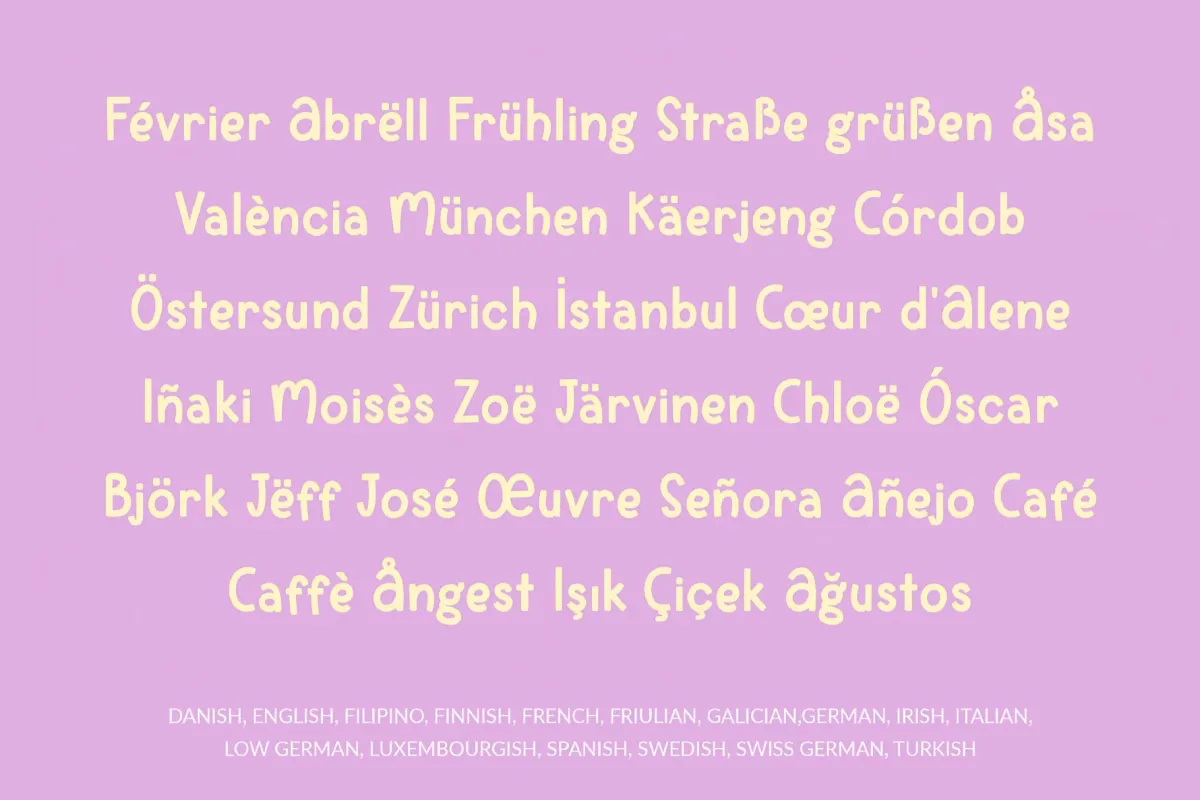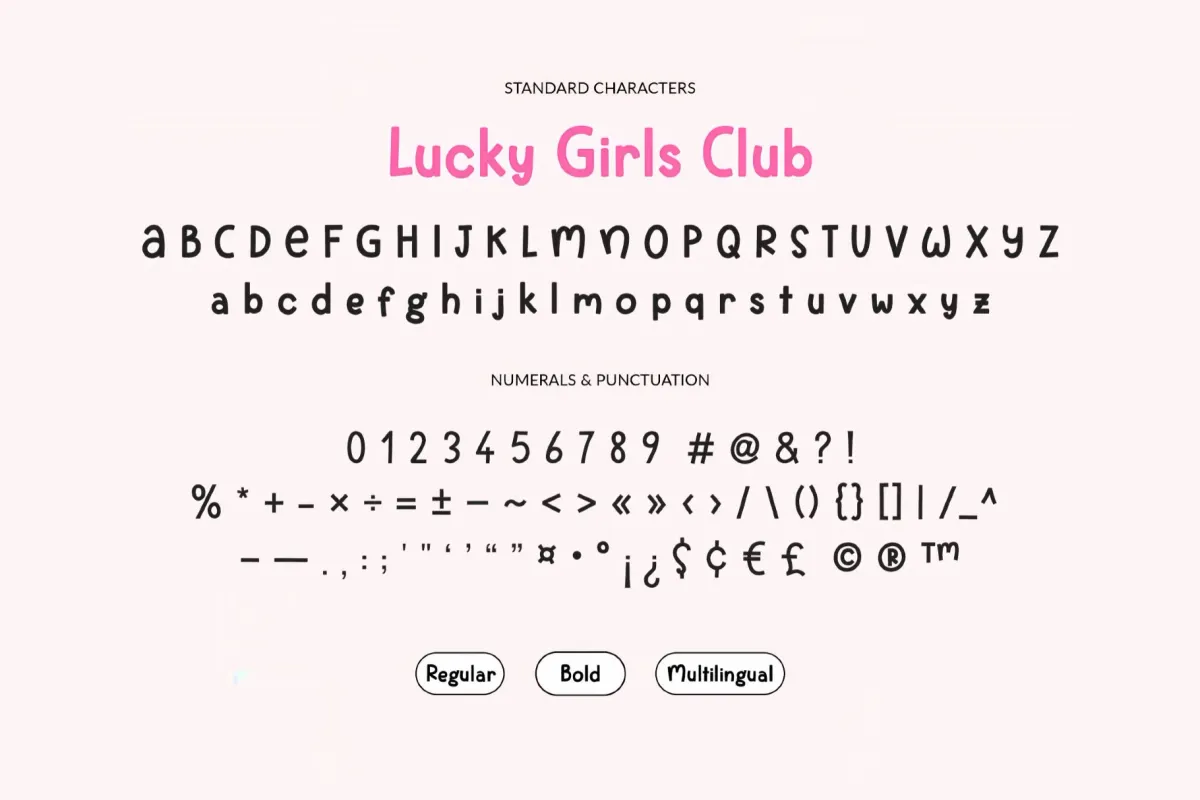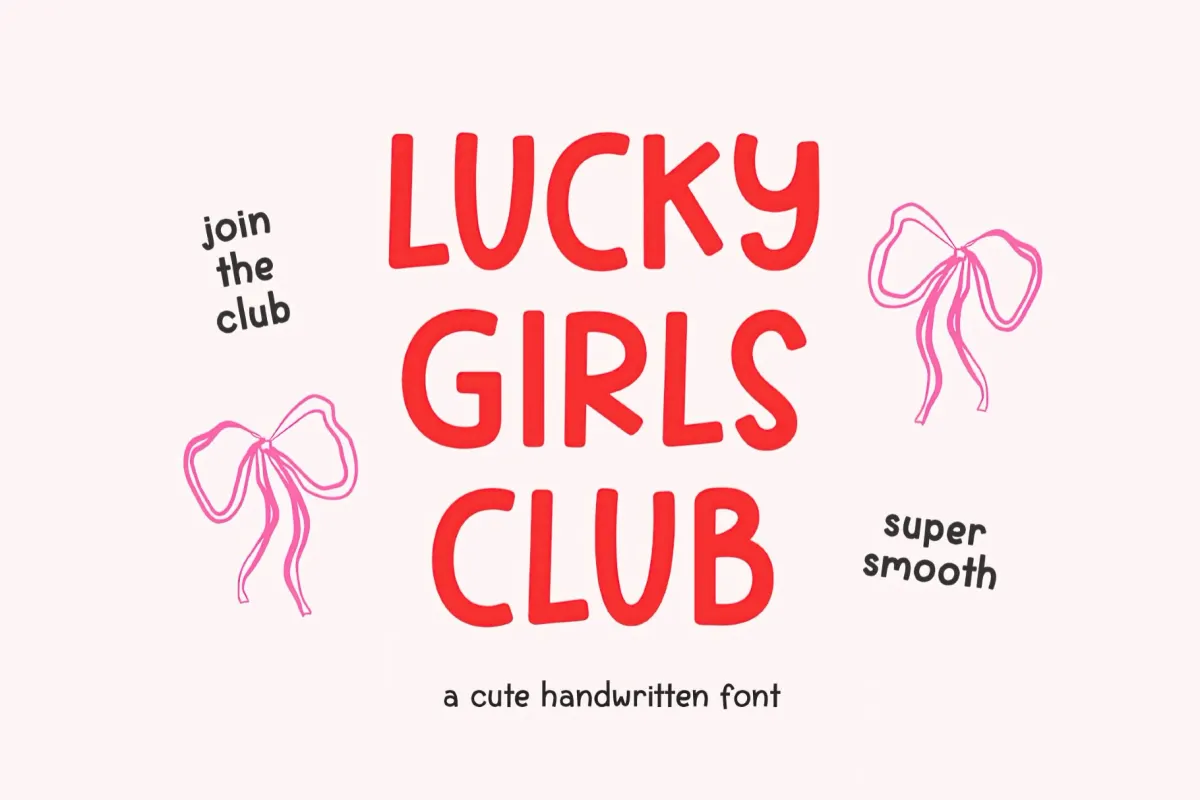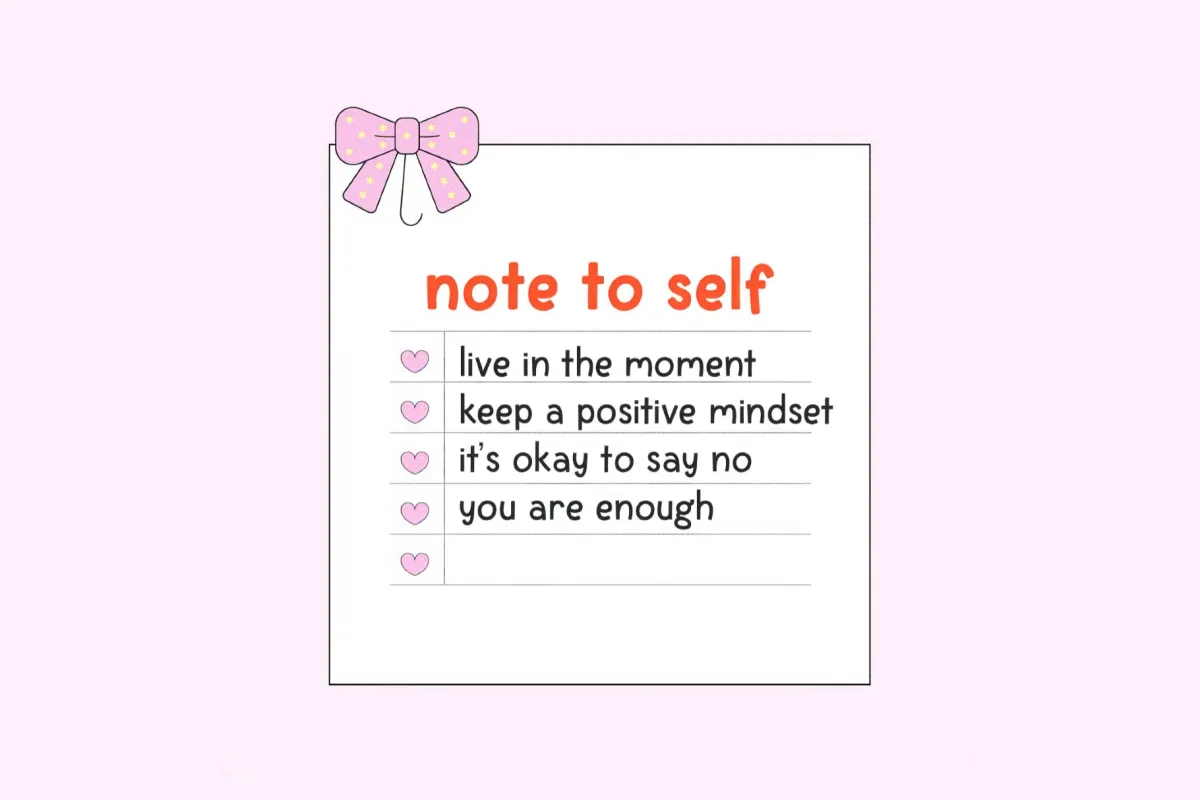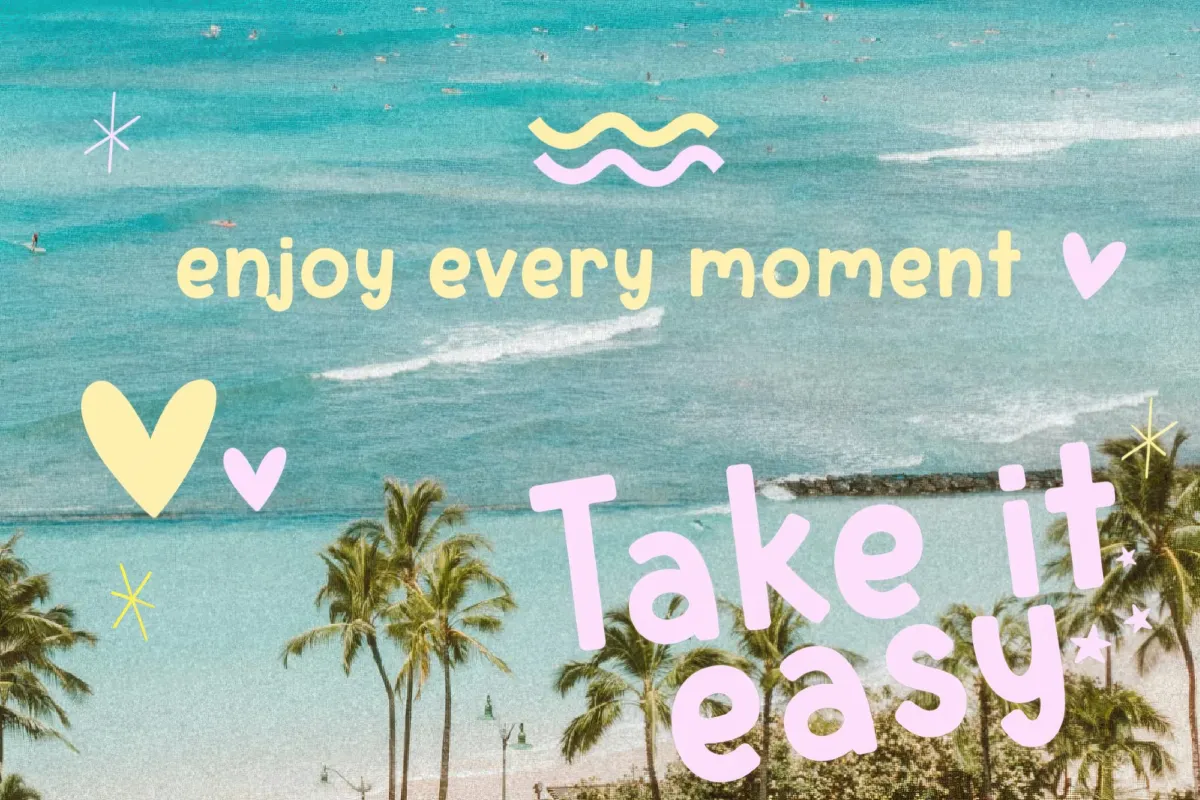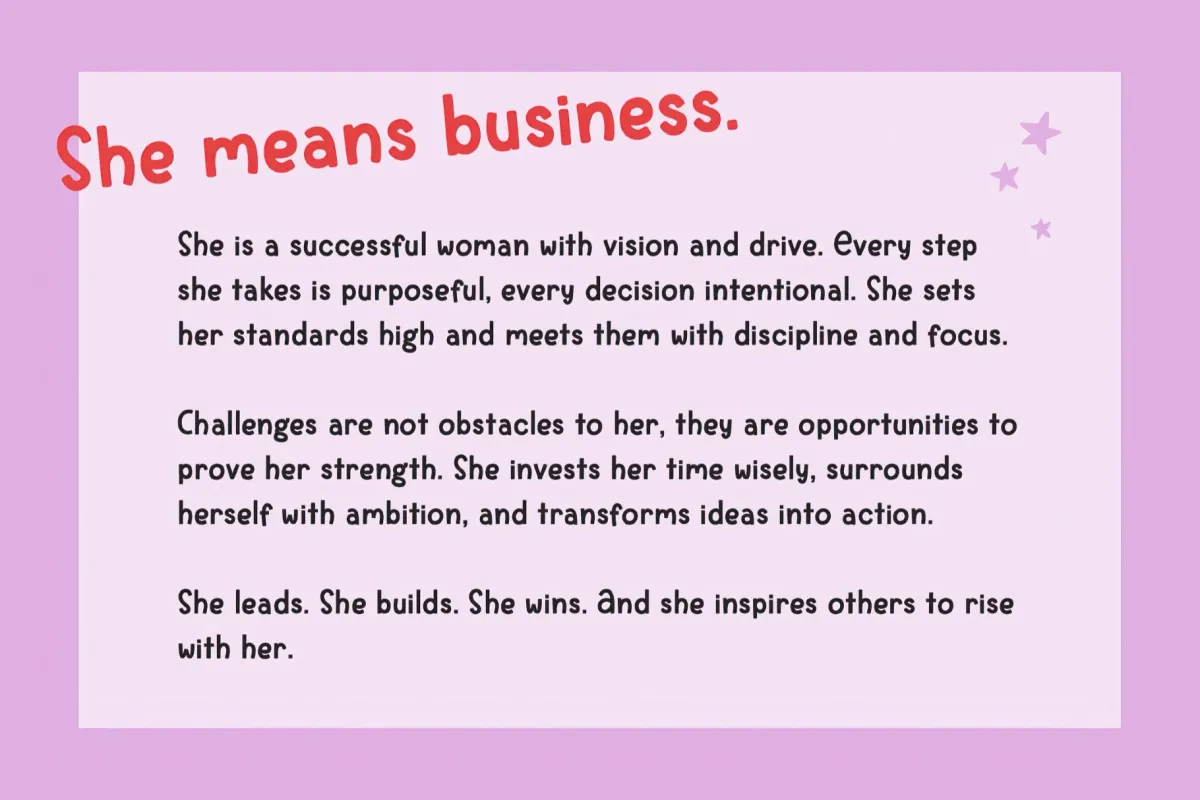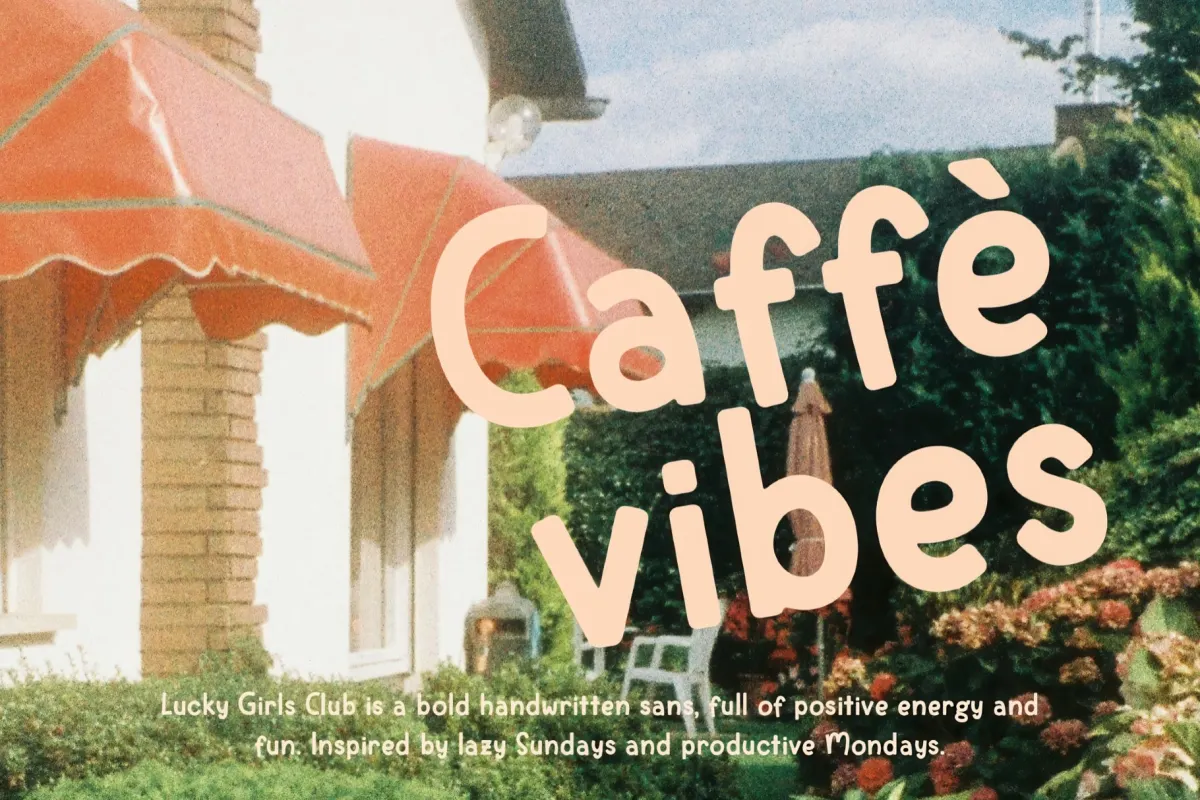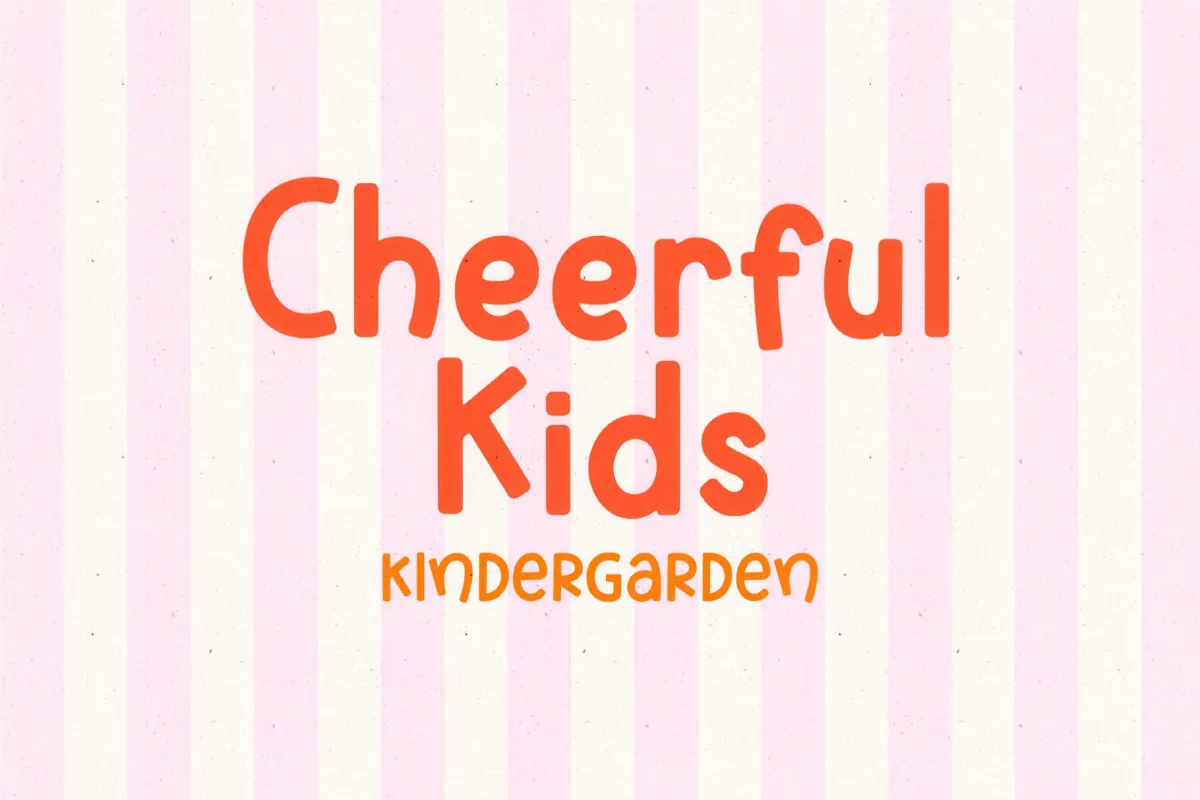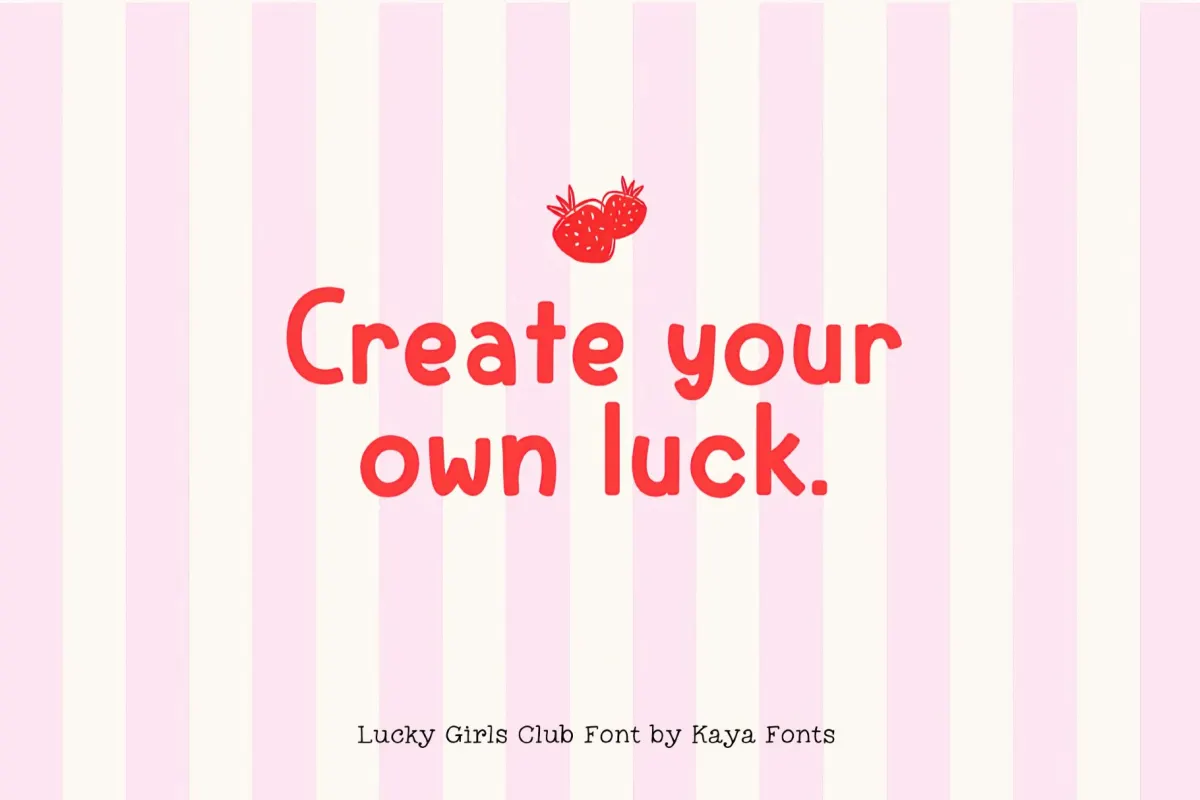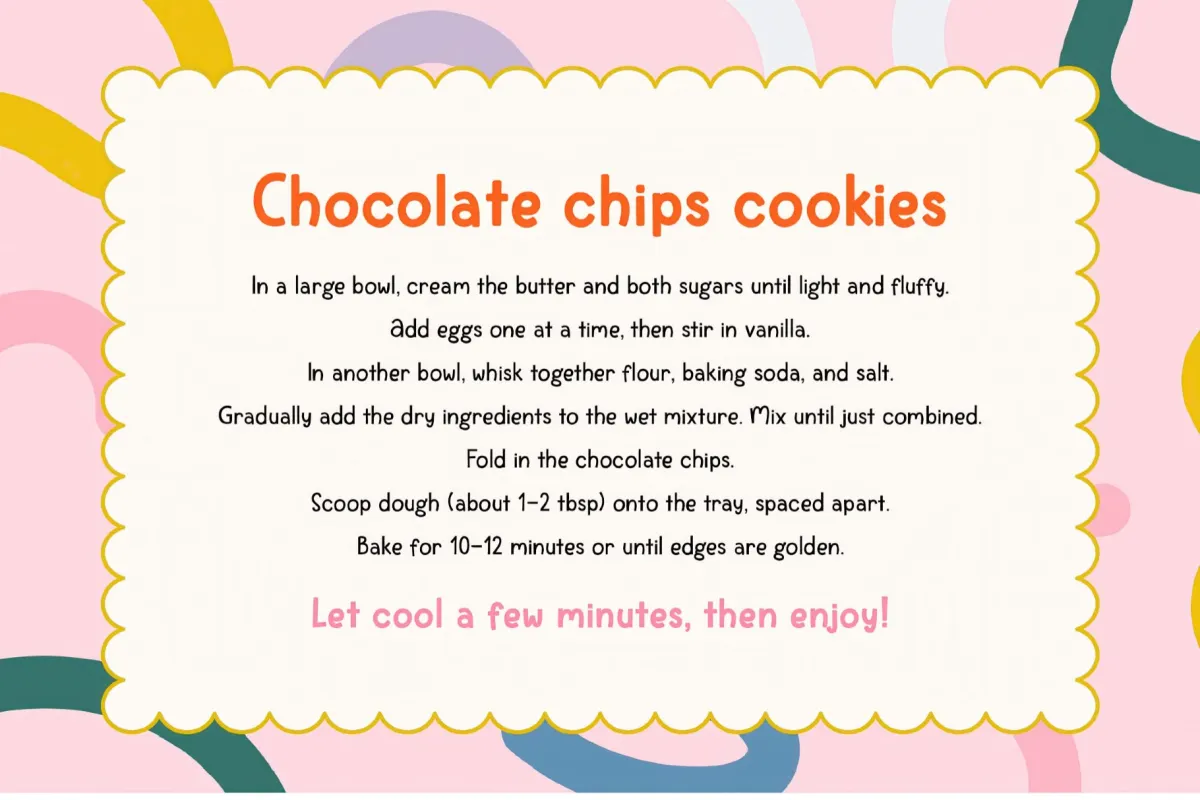
Lucky Girls Club Handwritten Sans
Lucky Girls Club
Lucky Girls Club is a playful handwritten font with a bouncy, marker-drawn hand, living between a planner scribble and a scrapbook caption. The letters sit on an uneven baseline with rounded terminals and a chunky, casual stroke. Two weights shape a light everyday line and a thick one for headlines. The rounded forms hold up small in captions and keep their charm when blown up to a poster title; the built-in alternate characters let repeated letters vary, so a word does not look copy-pasted.
Uses:
- Social content — quote cards, story templates, reel covers, announcement posts, sticker packs.
- Branding and logos — girls' clubs, beauty brands, cafés, craft studios, small shops.
- Merchandise — totes, t-shirts, mugs, journals, enamel pins, sticker sheets.
- Packaging design — candle labels, cosmetic pouches, gift wraps, treat boxes, soap wraps.
- Stationery and journaling — planners, greeting cards, scrapbook layouts, party invites.
- 2 styles: Regular, Bold;
- uppercase & lowercase;
- numerals, punctuation & symbols;
- alternate characters;
- multilingual support across Western and Northern European languages and Turkish;